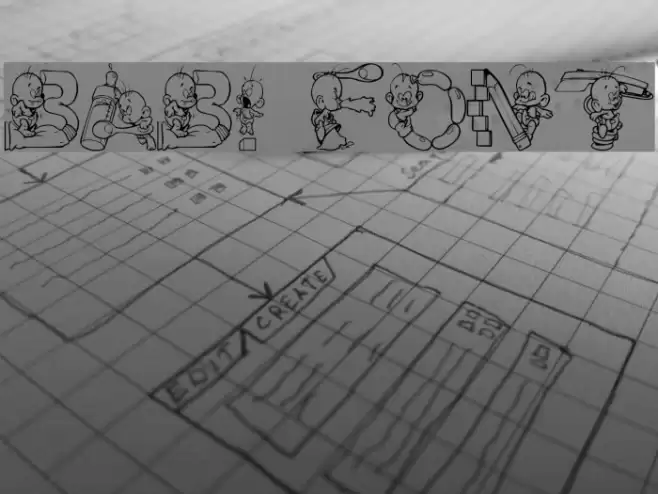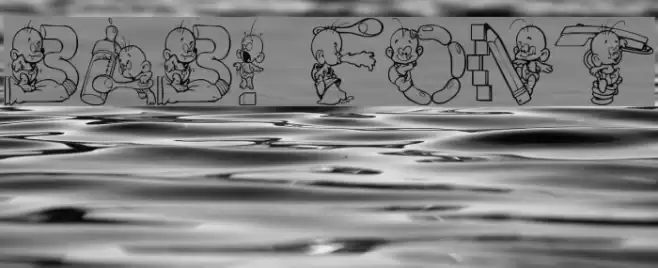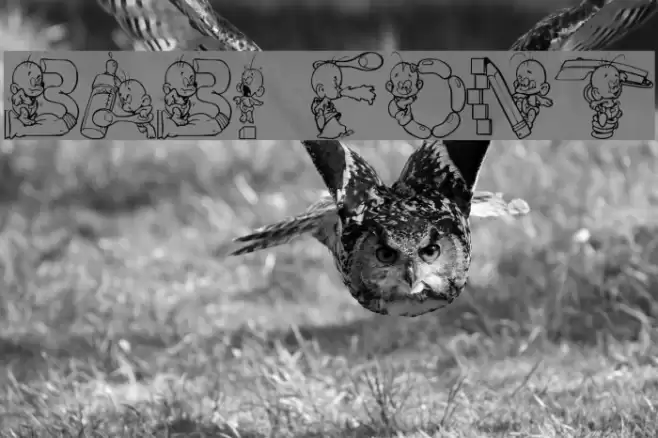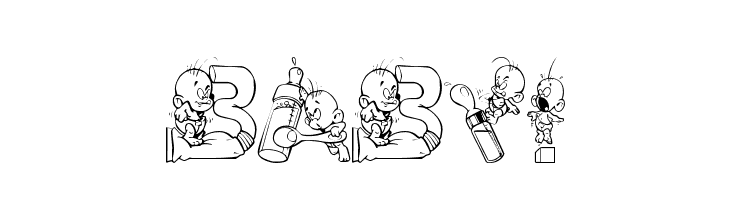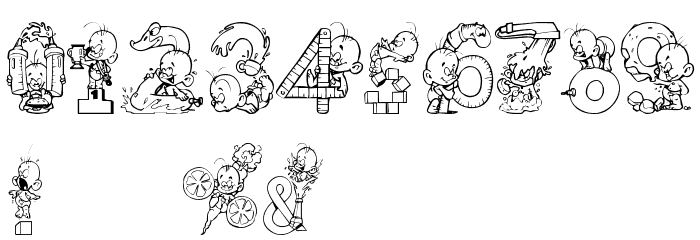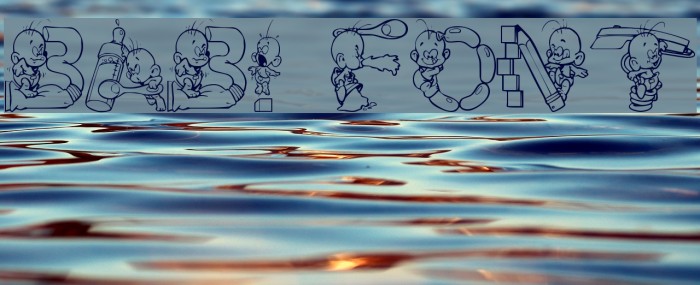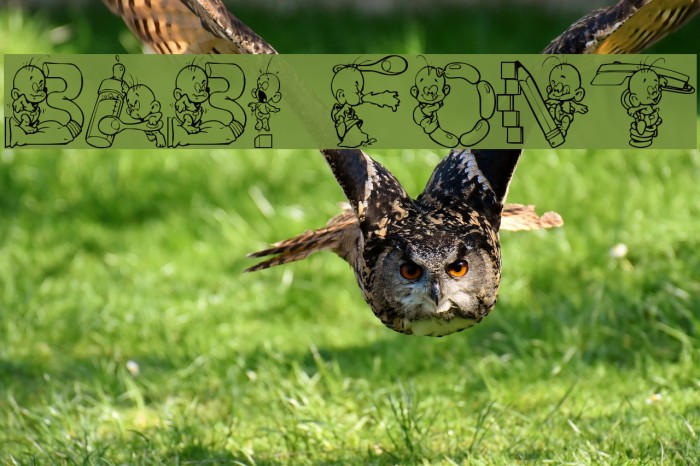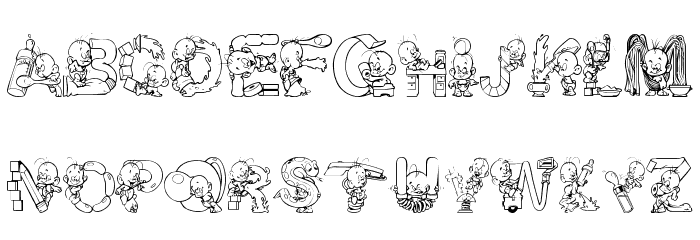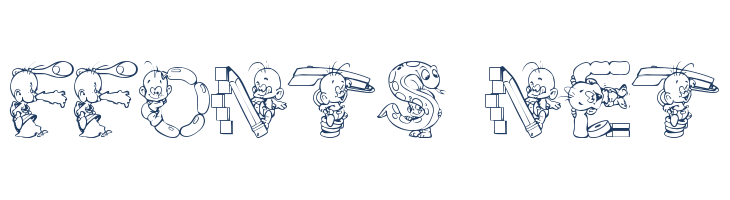
Baby! Font
Baby! Description
This playful and whimsical font features each letter and number adorned with charming baby illustrations. The characters are creatively integrated with various baby-related elements, such as toys, animals, and playful activities, giving each letter a unique and endearing appearance. The style is highly decorative, with intricate details that capture the innocence and joy associated with babies. The font is perfect for projects that aim to convey a sense of fun, warmth, and childlike wonder. Its detailed design makes it ideal for use in larger sizes where the intricate illustrations can be fully appreciated.
A whimsical decorative font featuring baby-themed illustrations integrated into each character from Dingbats fonts.
- Proposed Projects: Ideal for children's books, nursery decor, baby shower invitations, and playful branding projects.
- Use Case: Headlines, Logos, Decorative Text